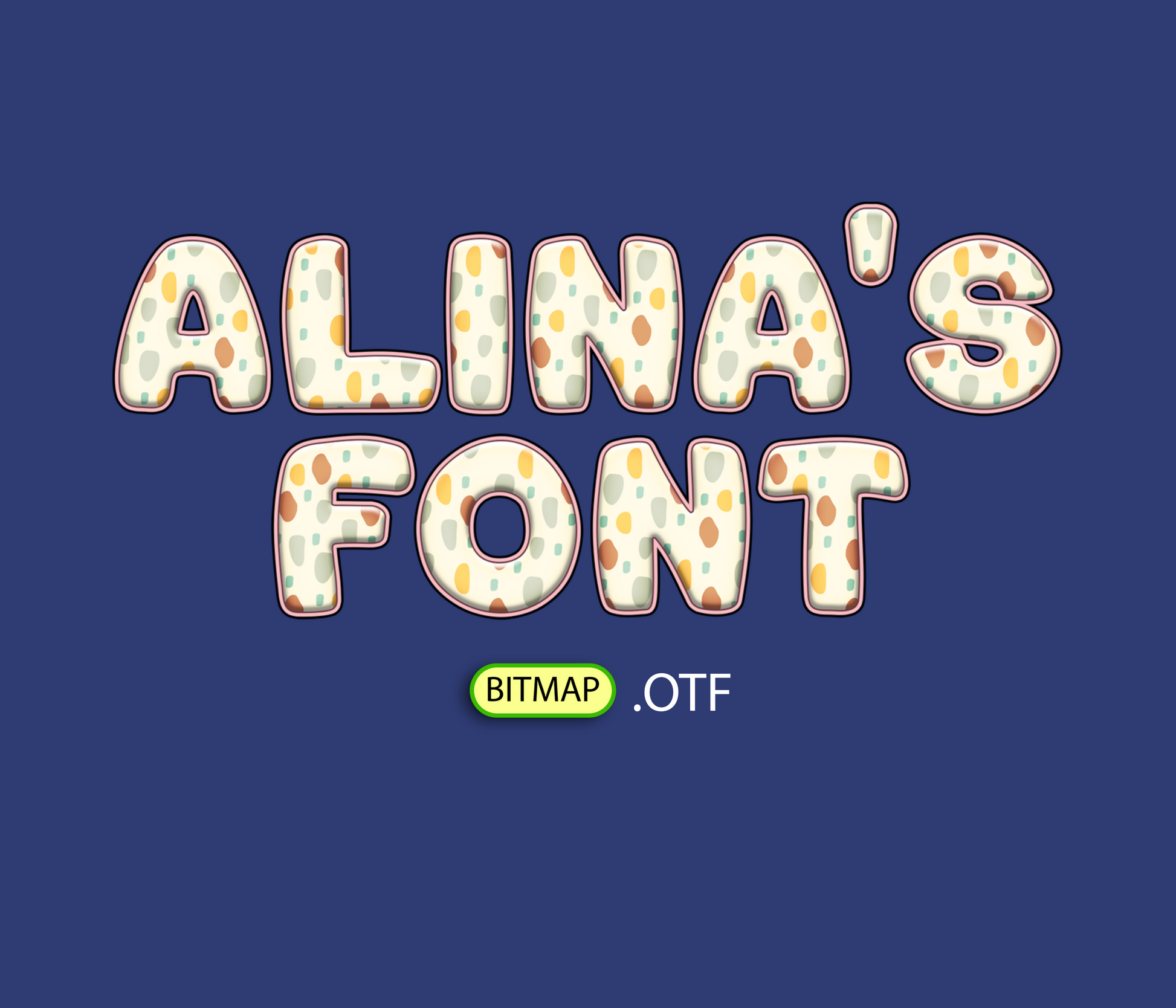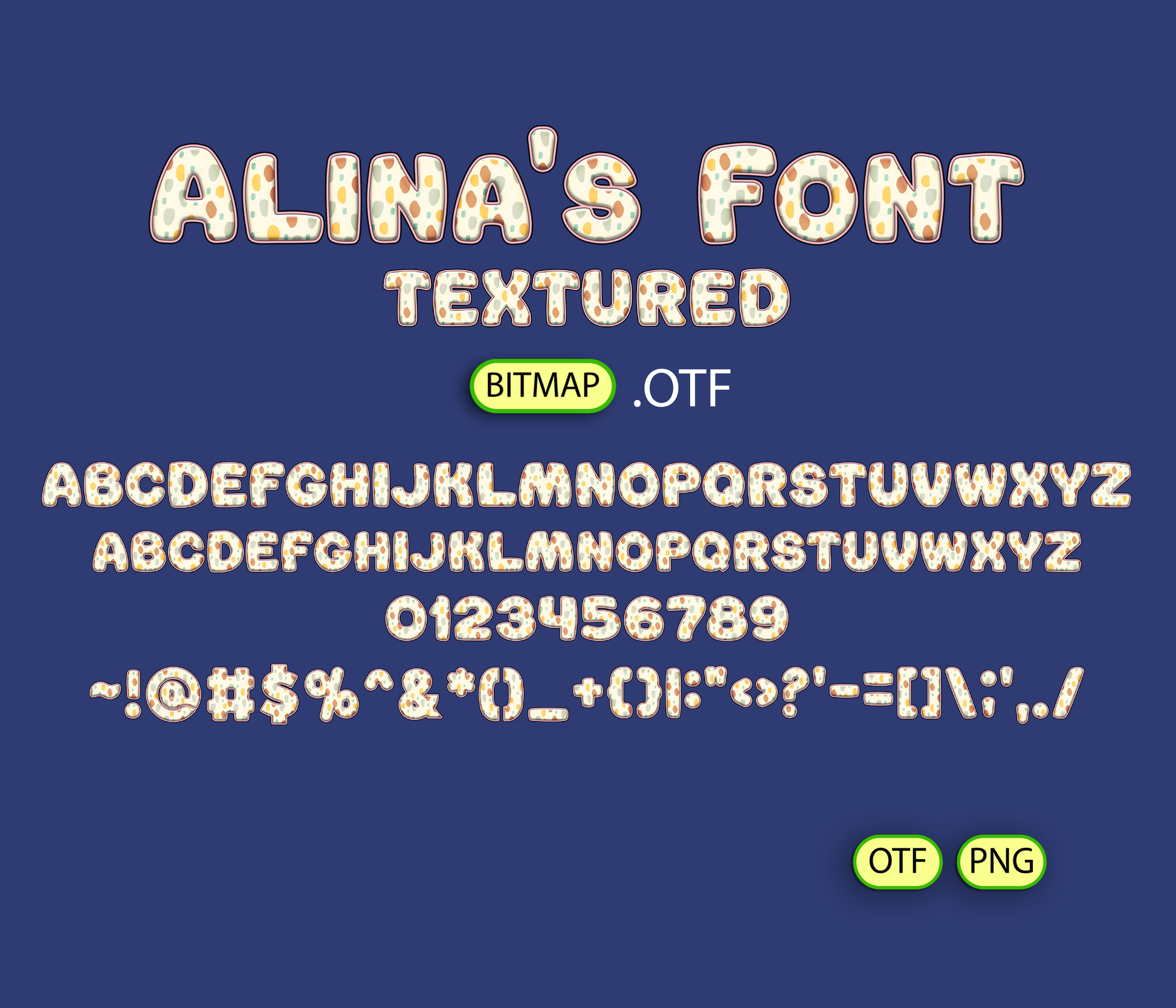
FREE Chaotic Geometry Pattern Font
Chaotic Geometry Typeface Textured Random Shape
Dive into the unpredictable world of abstract expression with our Chaotic Geometry Typeface, capturing the essence of spontaneous creativity and artistic randomness. Perfect for avant-garde designers, experimental artists, modern galleries, and creative professionals, this font brings the bold, unconventional spirit of abstract art and geometric chaos to your projects. Create striking signage, contemporary-themed products, or digital content with the dynamic, unpredictable essence of scattered fragments and asymmetrical compositions.
Our Chaotic Geometry Typeface features irregular, fragment-inspired shapes and unpredictable characters reflecting the experimental yet sophisticated aesthetic of modern abstract art. Ideal for:
- Art Industry: Create compelling logos, packaging, and promotional materials for contemporary galleries, abstract artists, and experimental design studios
- Modern Design: Perfect for avant-garde exhibitions, contemporary art installations, and creative materials that celebrate unconventional aesthetics
- Digital Media: Enhance websites, blogs, and social media with dynamic headers and graphics that express creativity and artistic rebellion
- Educational Content: Add authentic character to art theory materials, design courses, and promotional materials for creative workshops
- Personal Projects: Bring artistic chaos to portfolio designs, experimental crafts, and home decor inspired by the aesthetics of contemporary art movements
Random Shape Font